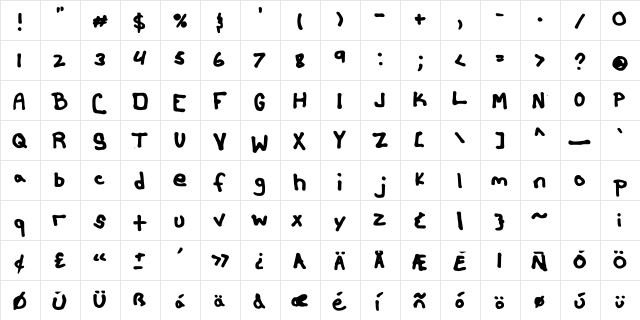
Thick N Ginch Medium
Design Context for Thick N Ginch Typeface
Thick N Ginch is a composed and adaptable typeface that performs quietly and consistently across a wide range of design contexts.